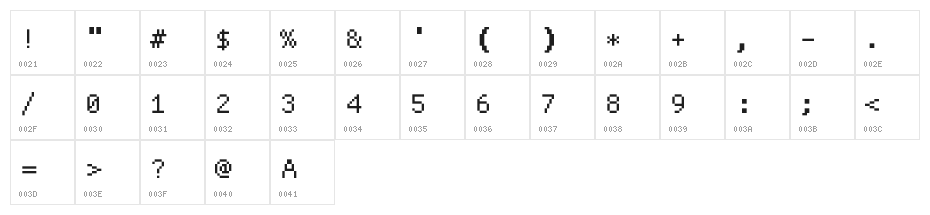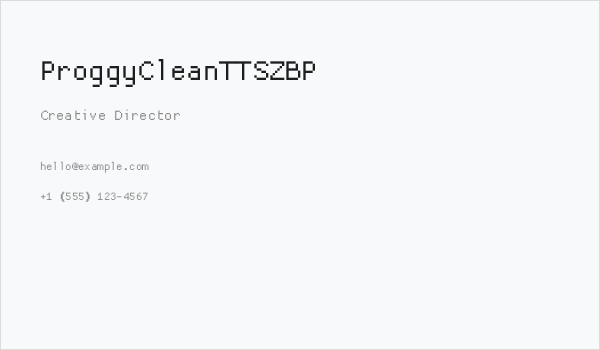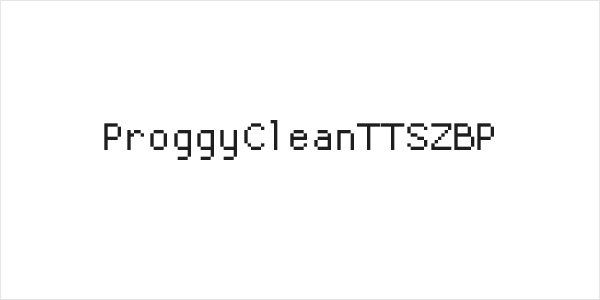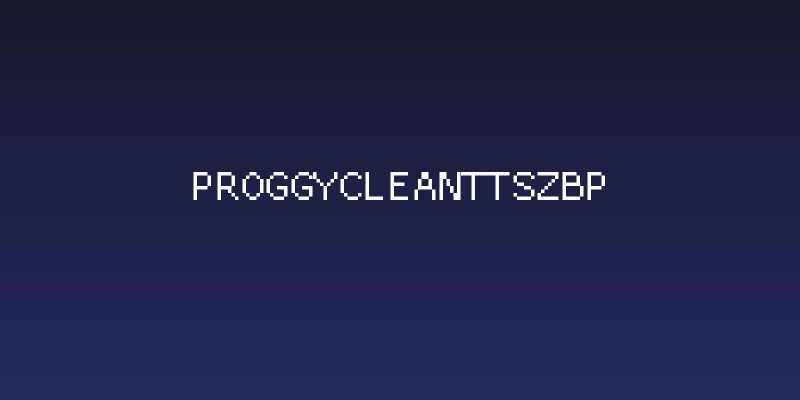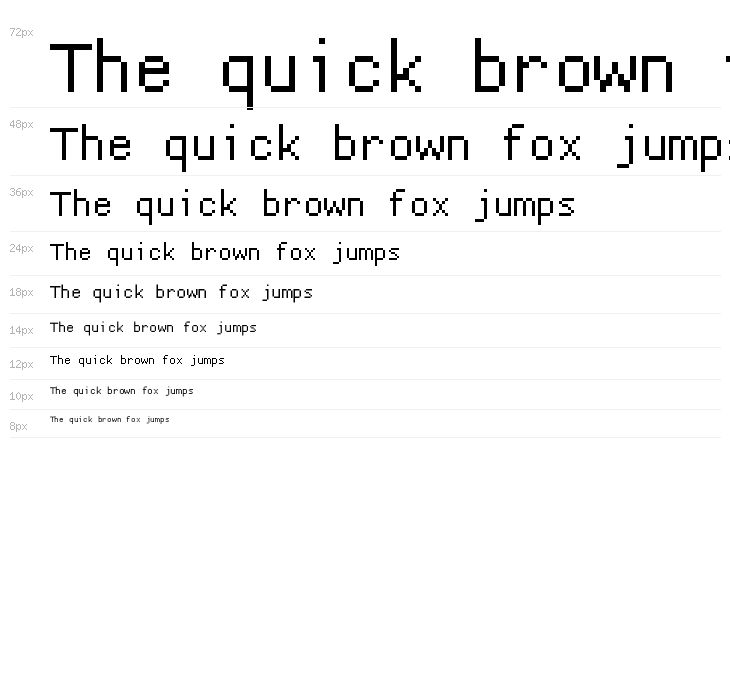
ProggyCleanTTSZBP Font
ProggyCleanTTSZBP Description
This font features a clean, monospaced design with a pixelated, bitmap appearance. Each character is constructed with a grid-like precision, giving it a retro, digital feel reminiscent of early computer screens and classic video games. The uppercase and lowercase letters maintain a consistent height, while the numerals and special characters are clearly defined, ensuring readability. Its simplicity and uniformity make it ideal for coding environments or any project that requires a vintage tech aesthetic.
| Use Case | Coding, Digital displays, Retro designs |
| Proposed Projects | Ideal for coding, retro video game design, digital art projects, and any application requiring a vintage tech look. |